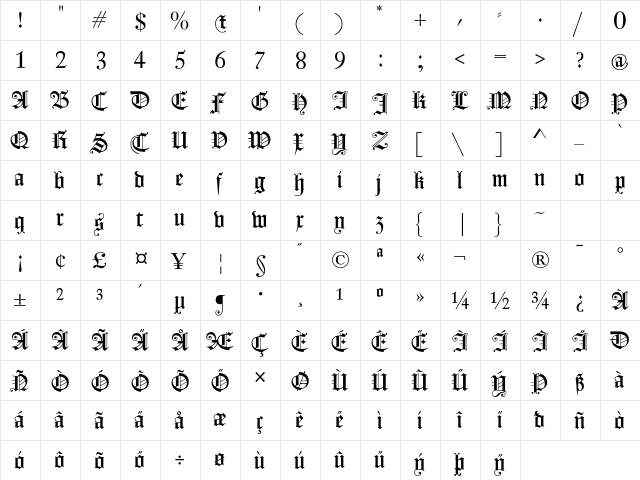
Fleischmann Gotisch PT Regular
| Foundry | preussTYPE | ingo preusss |
| Designer | Joan Fleischmann (1744), Ingo Preuss (2004) |
Design Context for Fleischmann Gotisch PT Typeface
Fleischmann Gotisch PT takes a measured approach to typography — its balanced proportions and neutral character make it a reliable workhorse for both digital and print work.